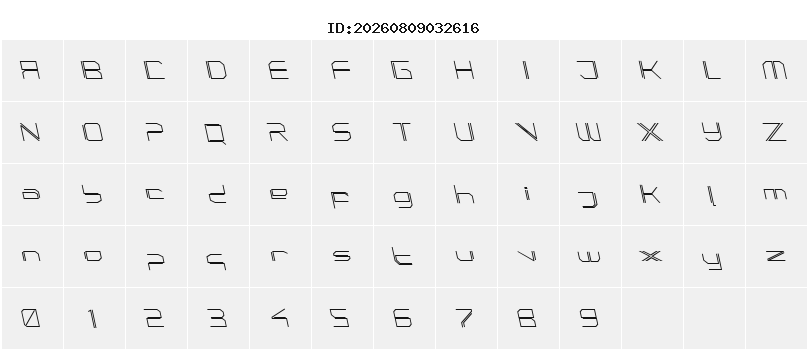
• Font Name: PhutureSqrdOpen
PhutureSqrdOpen.ttf is a modern, elegant sans-serif font designed for ultimate readability and visual harmony. Perfect for branding, headlines, web design, and print materials.